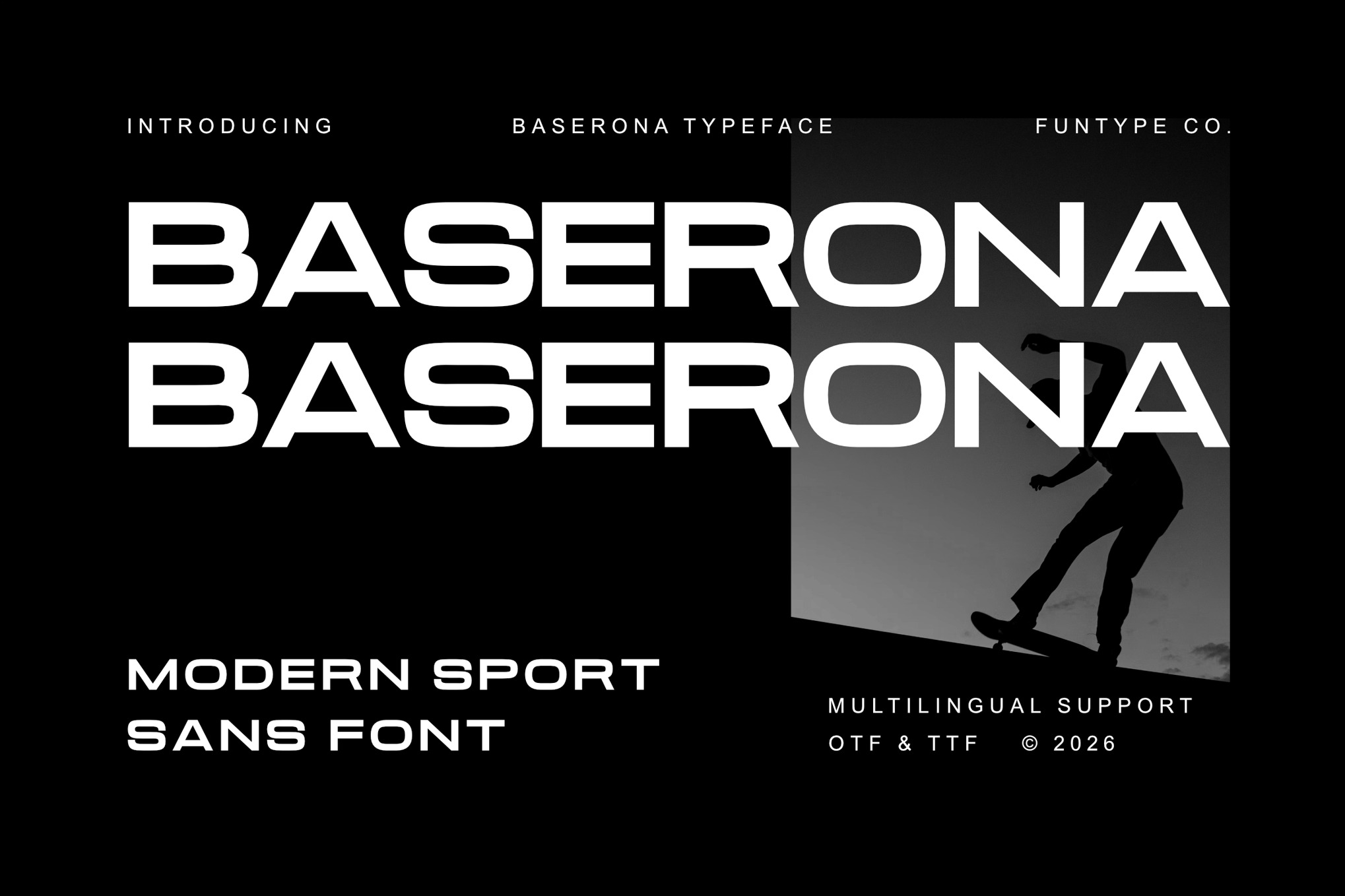
Baserona – Modern Sport Sans Font
Baserona – Modern Sport Sans Font is a premium-quality font developed to enhance your work with a polished, modern, and visually elevated look. Baserona is a bold, powerful, and modern sport sans font, thoughtfully designed to capture the essence of high-speed action and contemporary athletic storytelling. With its wide geometric structure, solid heavy strokes, and an accompanying dynamic outline style, Baserona offers a professional aesthetic that brings a touch of commanding energy to any creative project.
This font is the ideal choice for designers looking to add a professional, rugged, and high-impact touch to their work. Whether you are crafting an aggressive sports team logo, a sleek automotive brand identity, Baserona provides a seamless blend of modern speed and industrial power.
Modern Sport Sans Design: Optimized for a heavy, wide, and highly professional athletic look.
Multilingual Support: Fully loaded and ready for diverse global design projects.
Solid & Outline Styles: Perfect for creating striking layered typography and visual contrast.
Professional Athletic Aesthetic: High-end finish tailored for modern racing, gym branding, and esports team graphics.